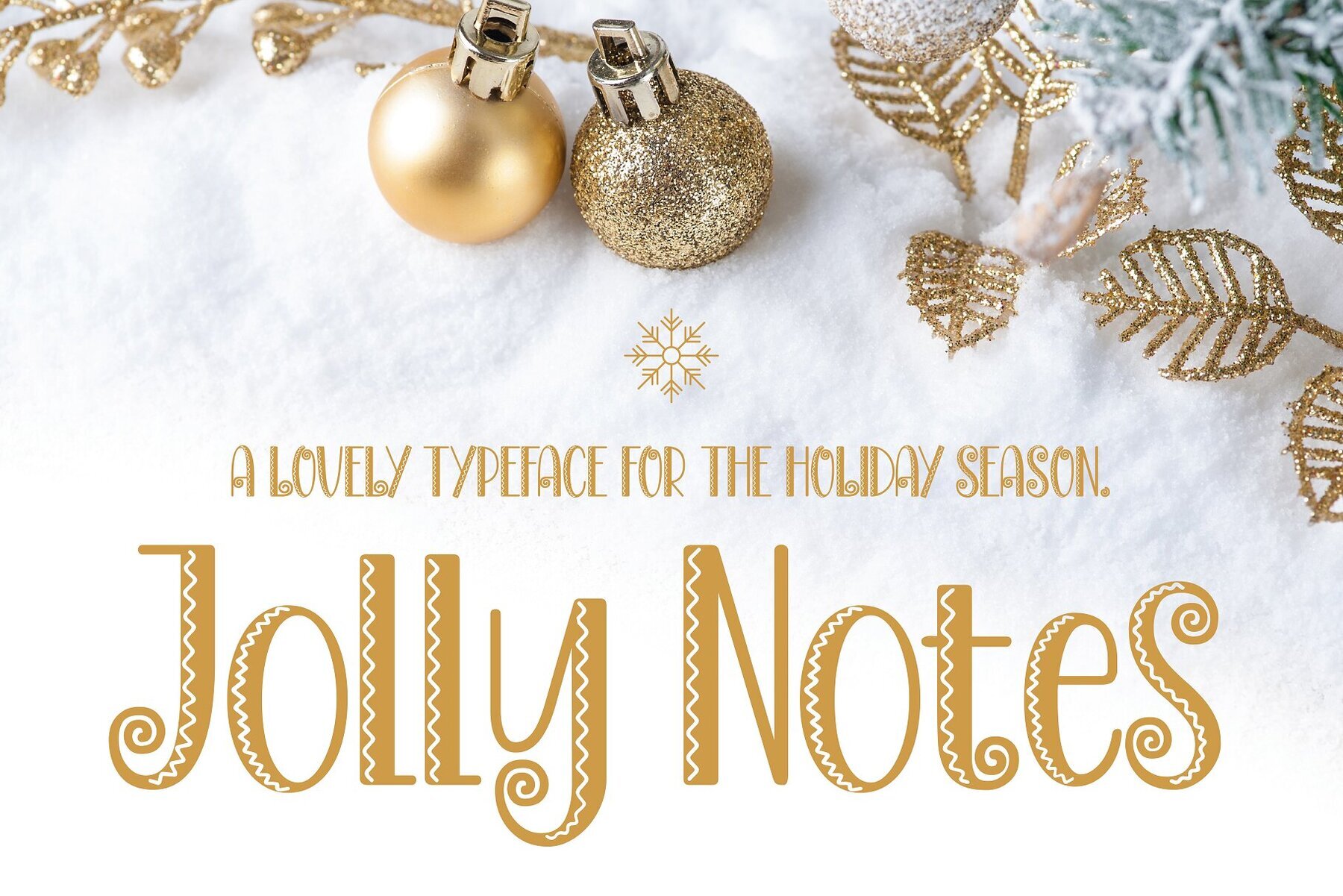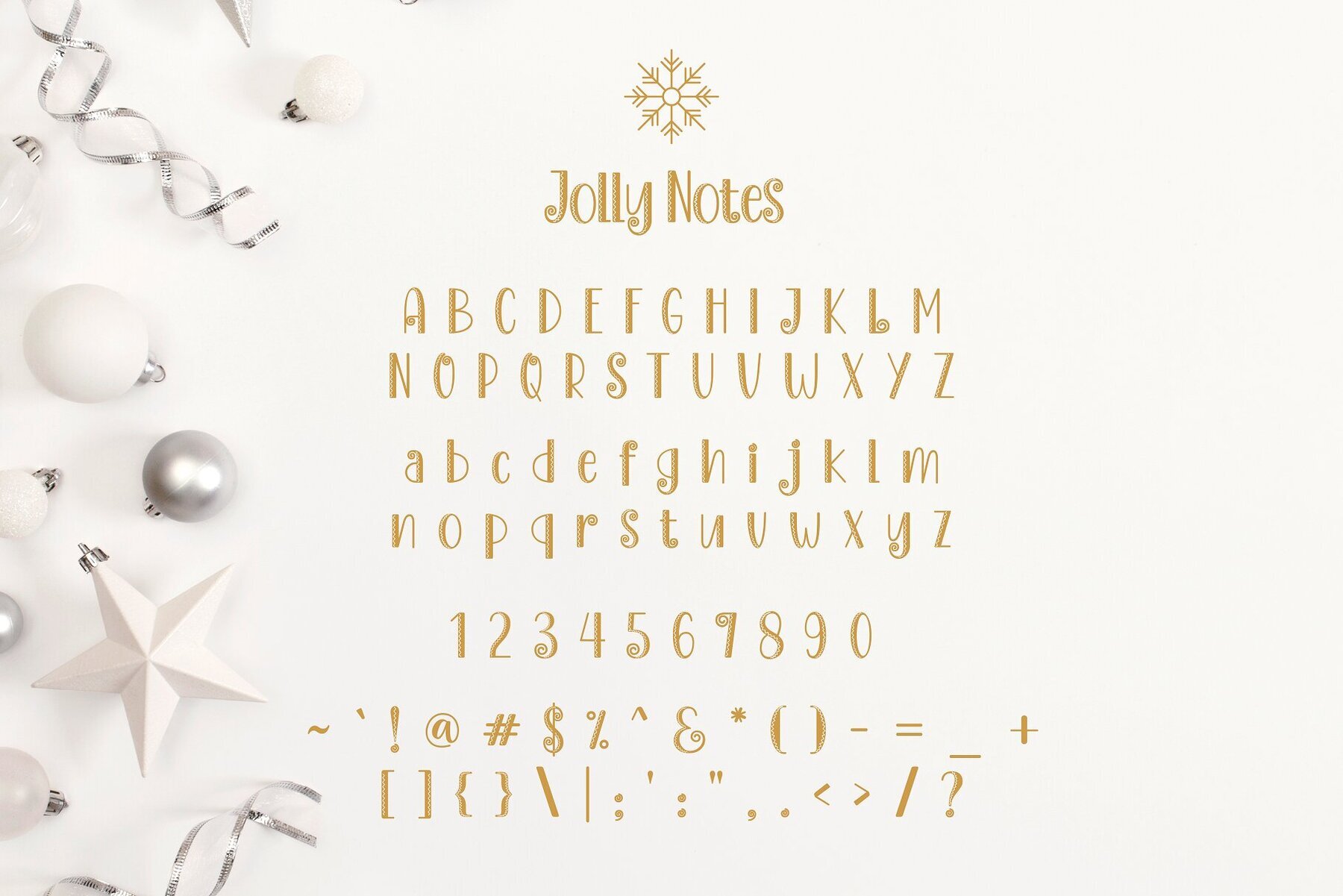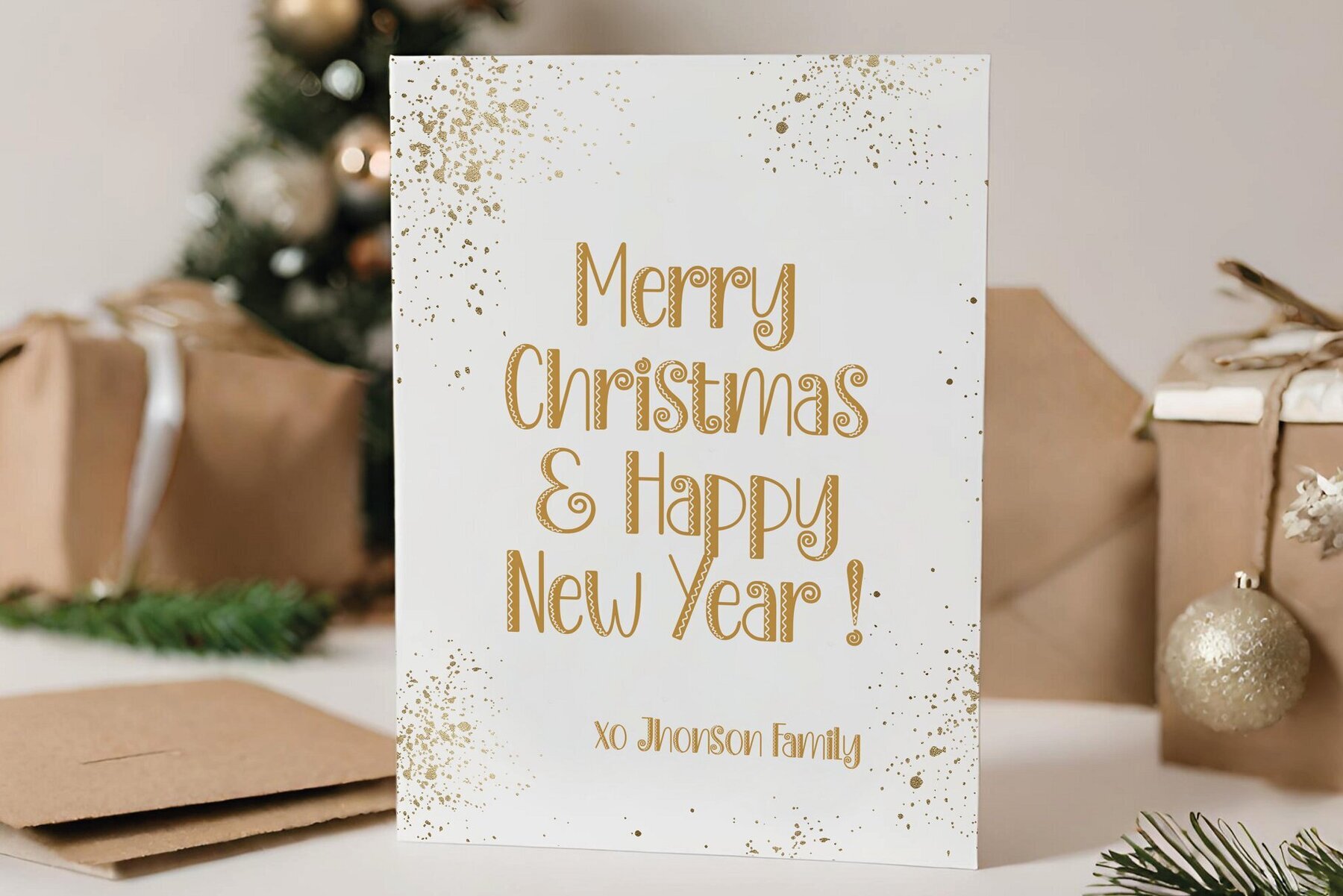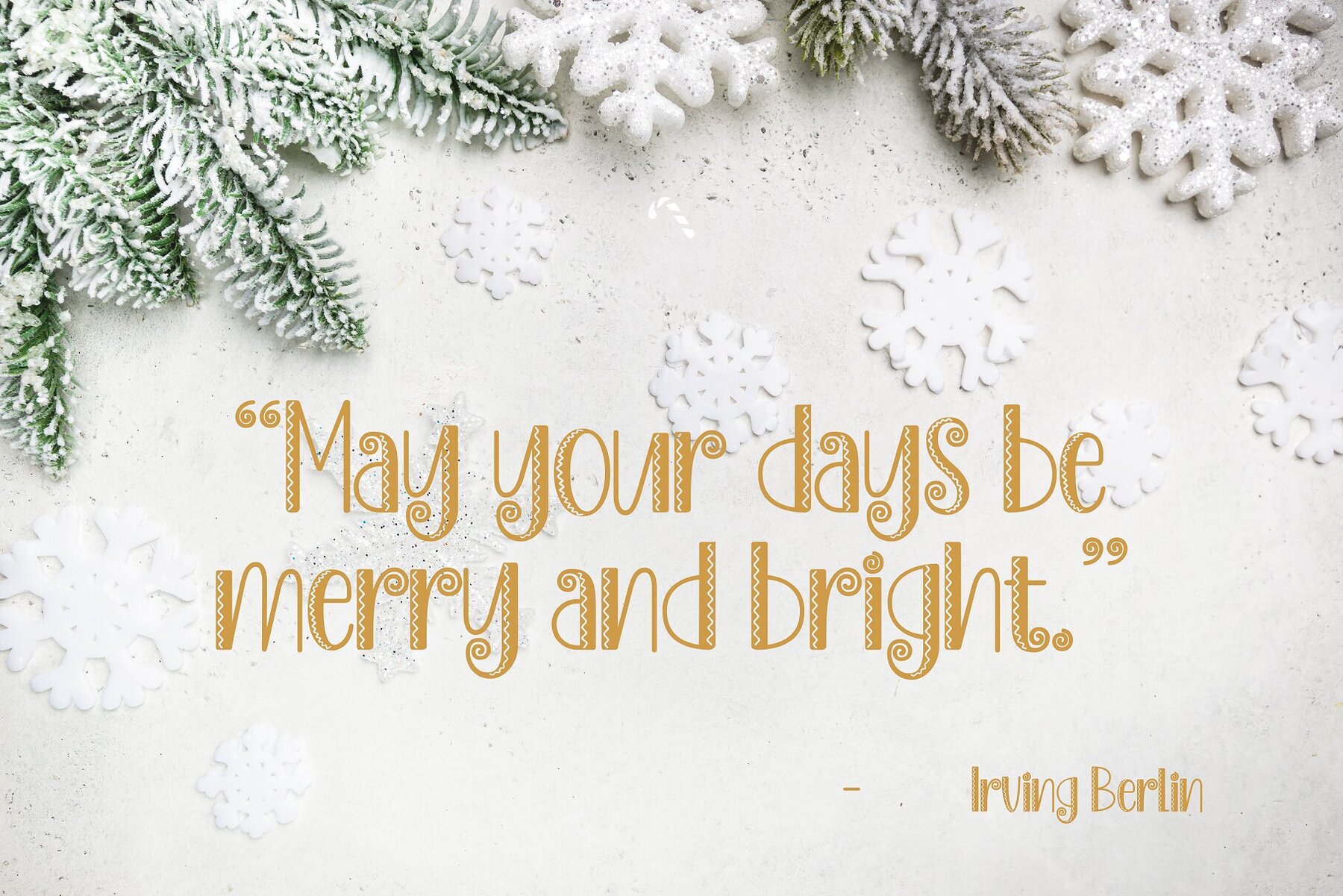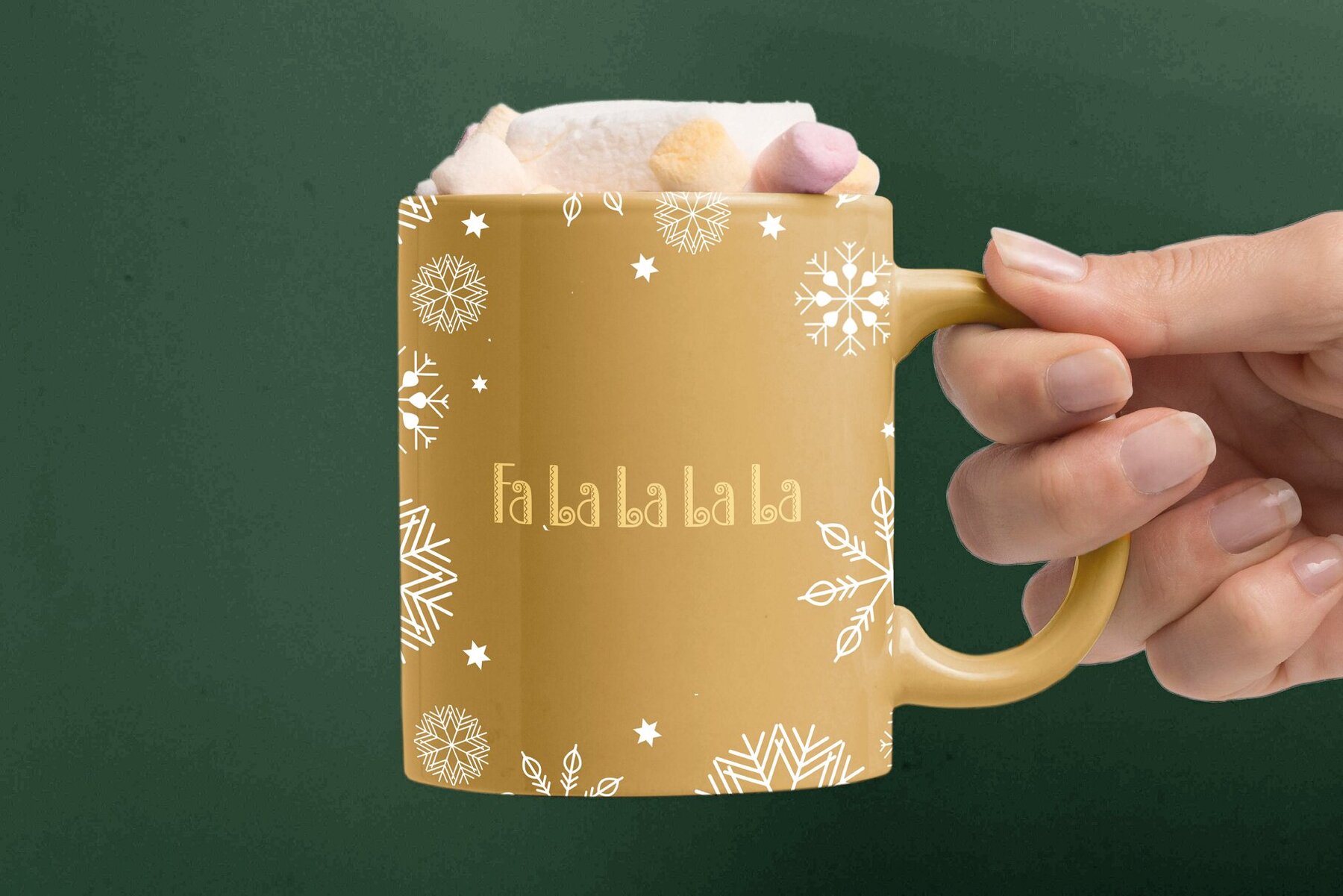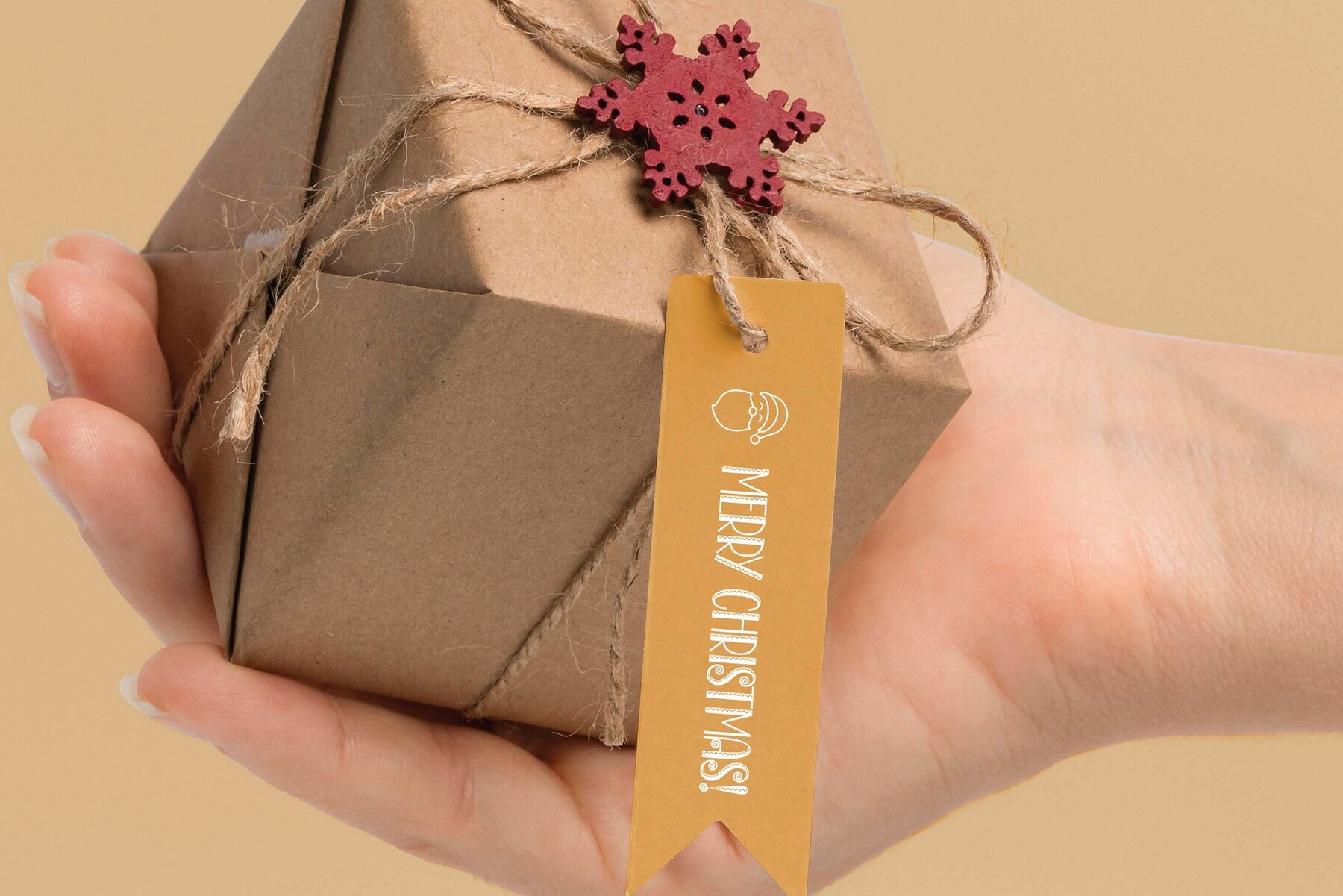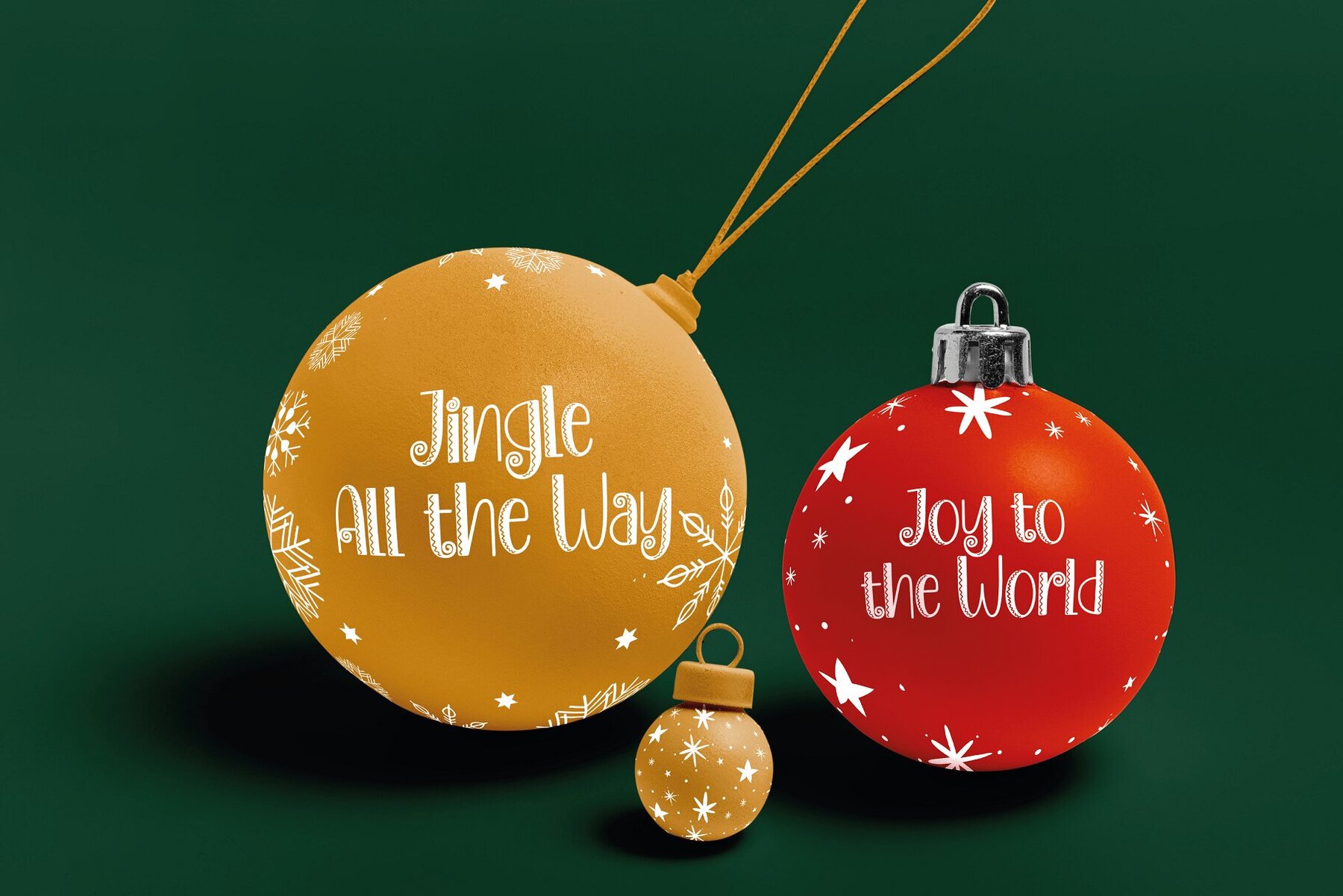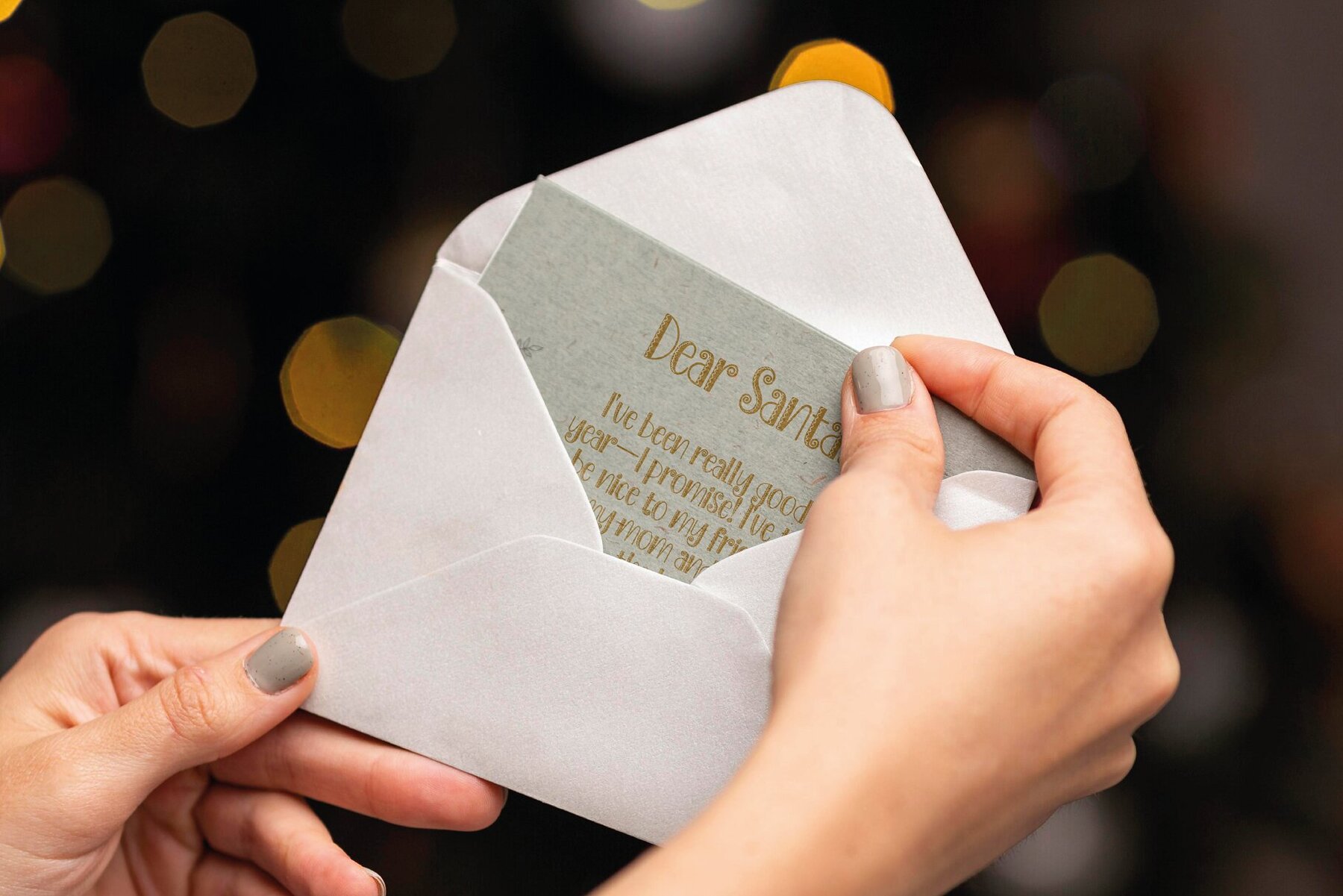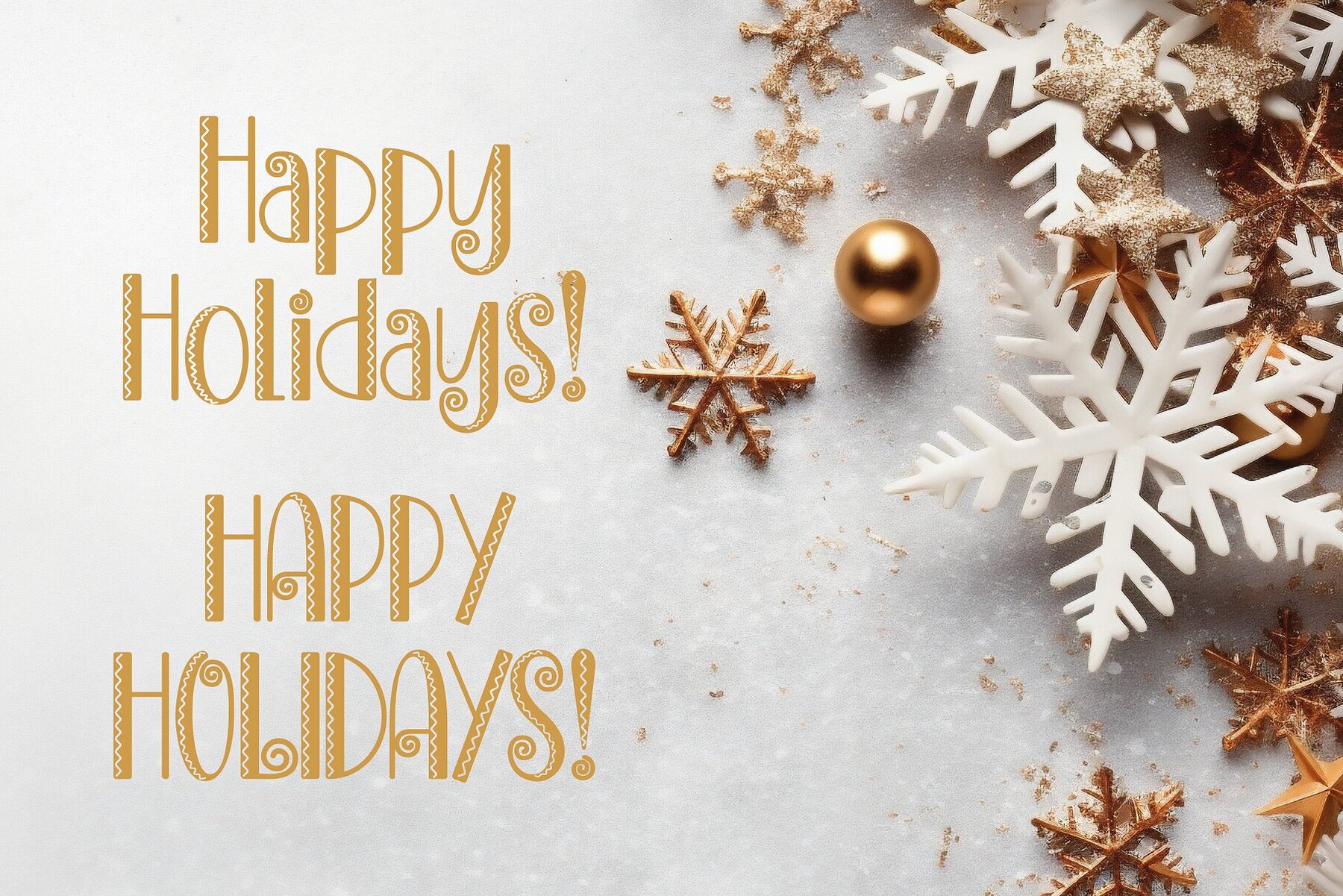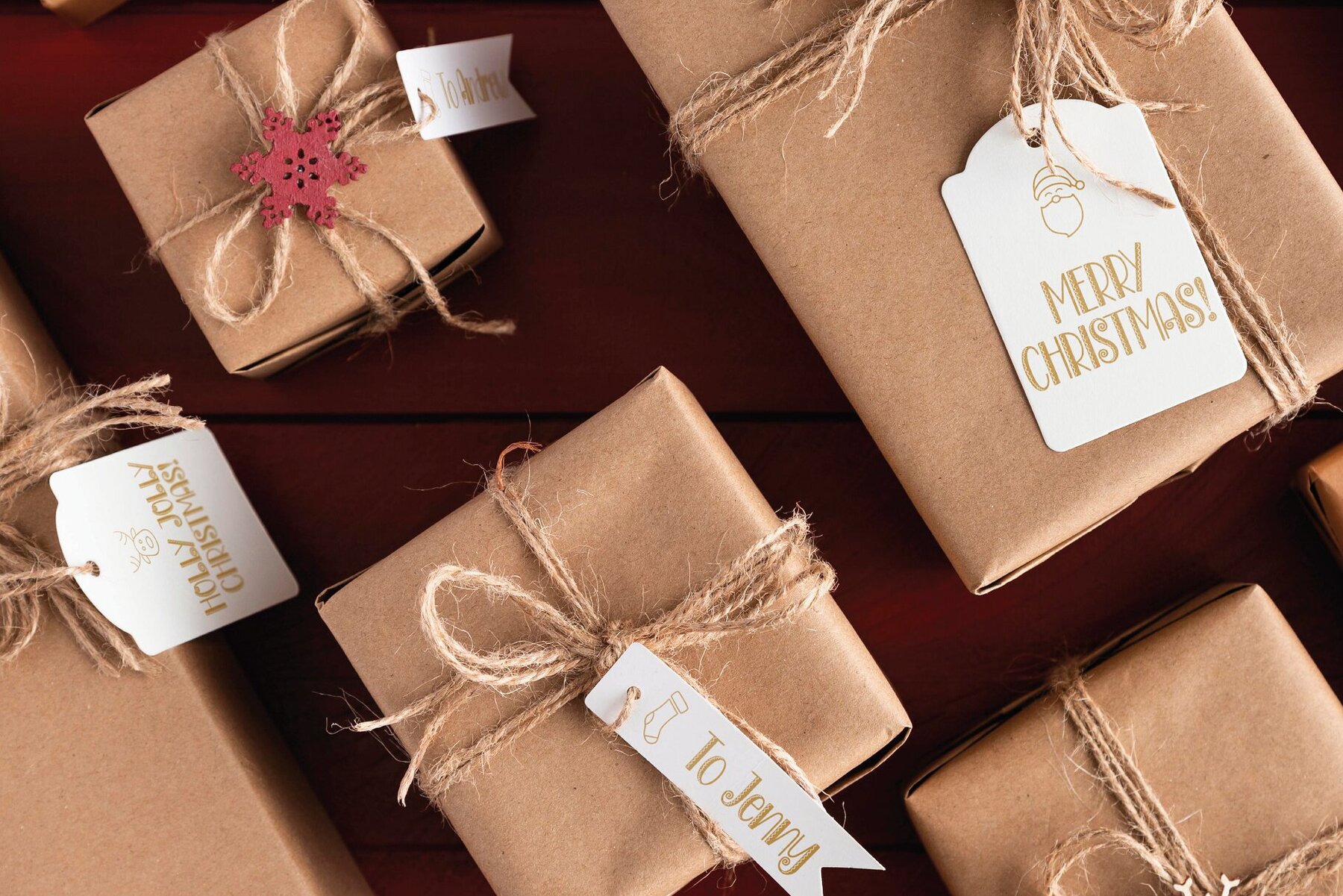
Jolly Notes is a captivating typeface designed to bring the joy and warmth of the holiday season into your projects. Inspired by the essence of Christmas, this font marries the traditional with the whimsical, making it perfect for a wide range of holiday-themed projects. With its unique blend of festive flair and readability, Jolly Notes features playful serifs and a lively set of characters that dance off the page, reminiscent of snowflakes swirling in a wintry sky. Each letter in the Jolly Notes typeface is crafted to embody the spirit of Christmas, from the gentle curves that mimic the softness of freshly fallen snow to the sharp edges that recall the crispness of winter air. The font includes a variety of weights and styles, offering versatility for everything from greeting cards and holiday invitations to festive advertisements and seasonal branding. Jolly Notes also boasts an array of special characters and glyphs, including snowflakes, stars, and ornaments, allowing designers to add a touch of holiday magic to their creations. Whether you’re designing a holiday greeting card, a December newsletter, or branding for seasonal promotions, Jolly Notes is designed to infuse your work with the cheer and charm of the Christmas season. Perfect for designers, marketers, and anyone looking to add a festive touch to their work, Jolly Notes is more than just a typeface—it’s a celebration of the holiday spirit, offering endless possibilities to make your holiday projects stand out.